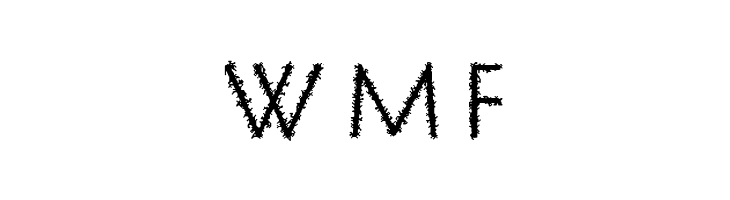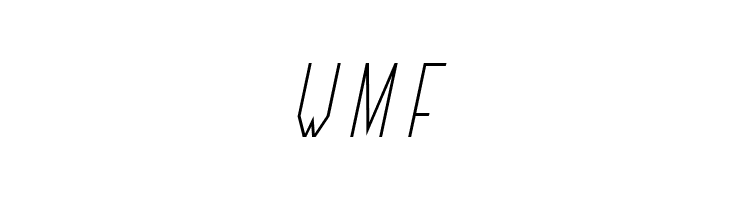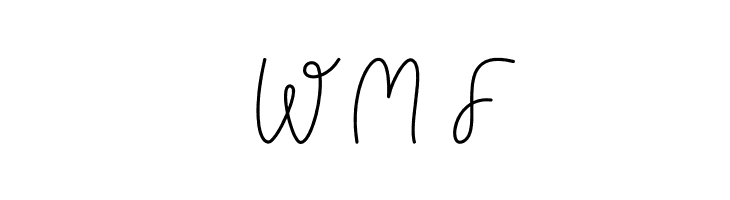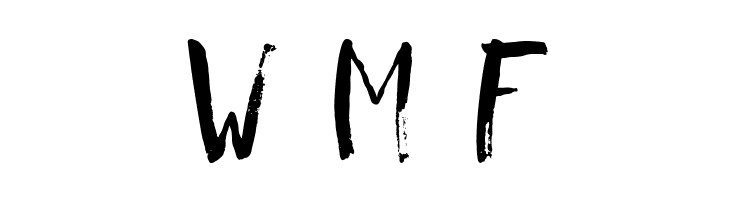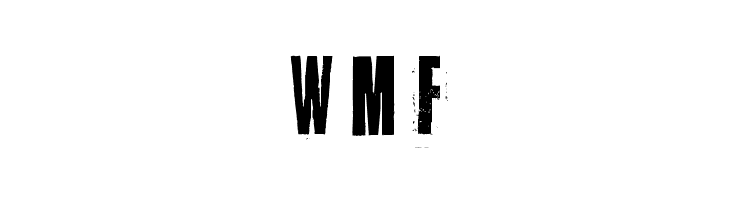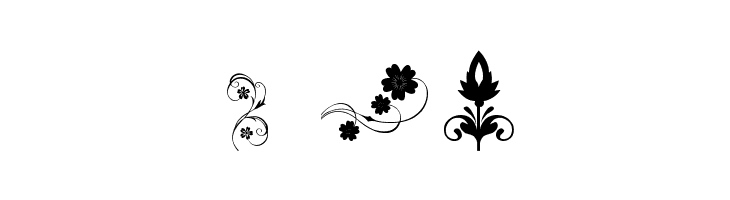
• Forever Together Sans Light Italic
A sleek, modern, light italic font with elongated, condensed characters.
• ForgivableSin
A whimsical, decorative font with playful loops and curls.
• Formentera
A bold, textured font with a hand-drawn, sketch-like appearance.
• formes2
A decorative font with abstract, tribal-inspired designs and intricate patterns.
• formes2
A decorative and abstract font with intricate patterns and bold shapes.
• fotograami-flower
Ornate floral decorative font with detailed botanical elements.
• Found my way out
A bold, distressed font with a rugged, grunge aesthetic.
• Found my way out
A bold, distressed font with a rugged, vintage appearance.
• Frangstton
A playful, whimsical font with flowing cursive lowercase and tall, narrow uppercase letters.
• Frankenjura Demo
A bold, expressive font with a hand-painted, artistic style.